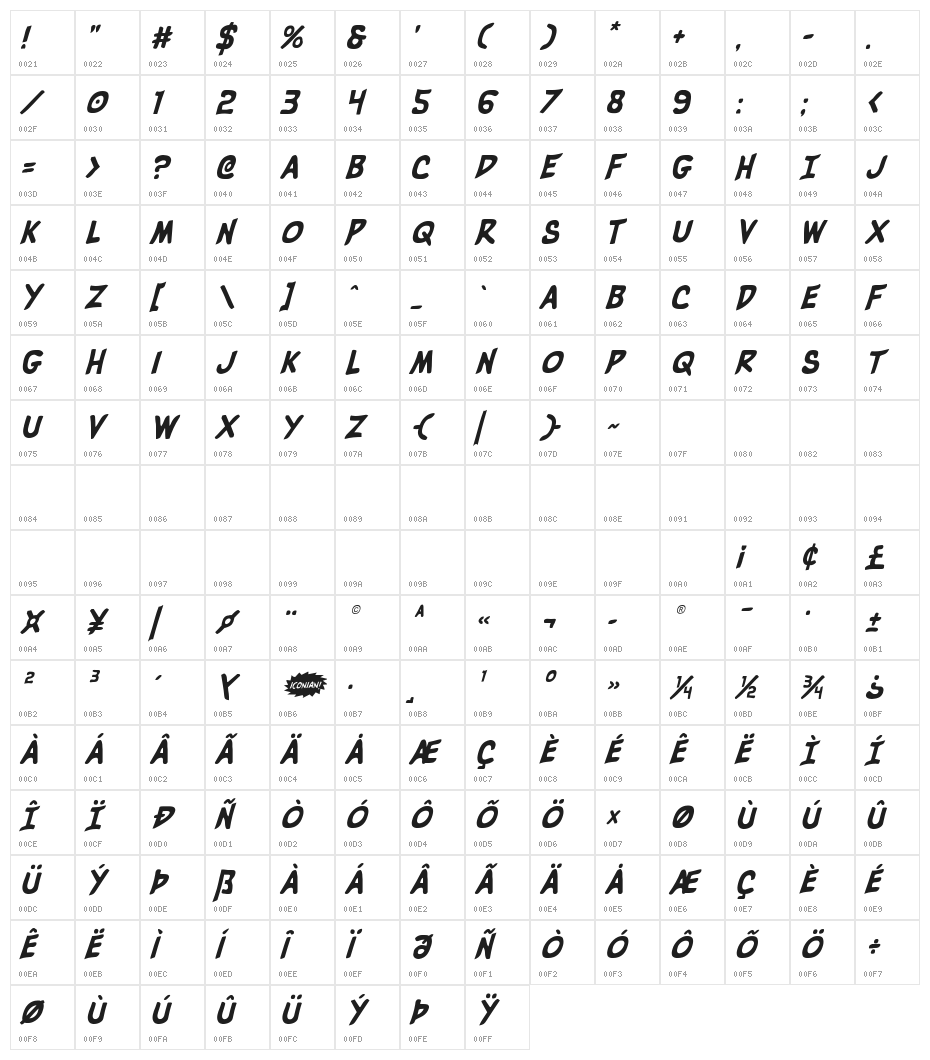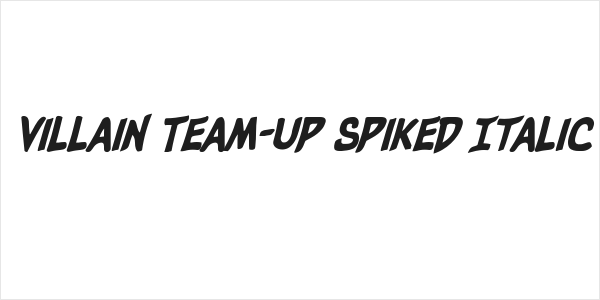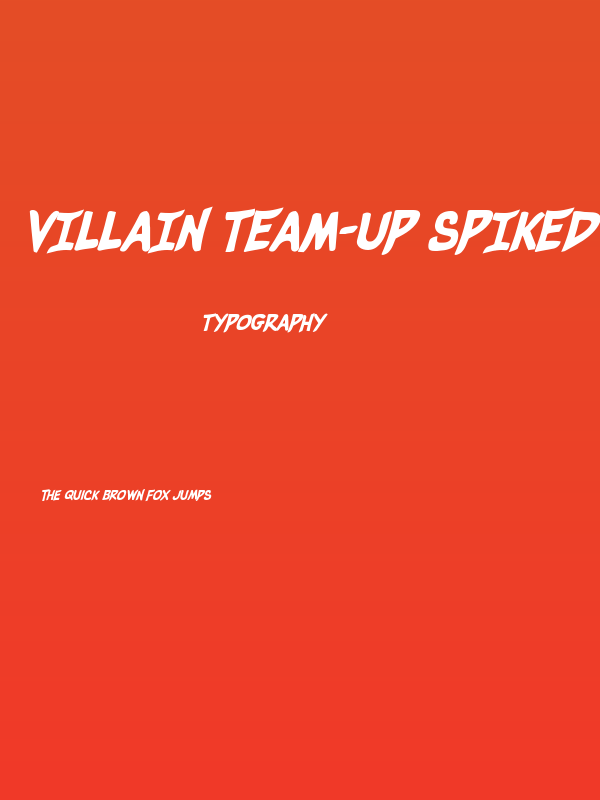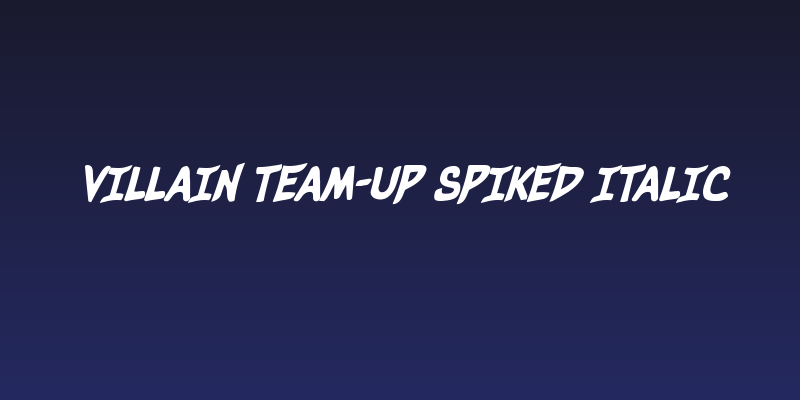
Villain Team-Up Spiked Italic Font
Villain Team-Up Spiked Italic Description
This font features a bold and dynamic style with a distinct italic slant, giving it a sense of movement and energy. The characters are thick and robust, with sharp, angular edges that create a spiked appearance. This design choice adds an aggressive and edgy feel, making it stand out in any context. The uppercase and lowercase letters maintain a consistent style, ensuring readability while still being visually striking. Numbers and special characters are designed to match the boldness and angularity of the letters, providing a cohesive look across all elements.
| Overall Style | Modern, Edgy |
| Proposed Projects | Ideal for comic book titles, action movie posters, video game covers, and branding for edgy or rebellious products. |